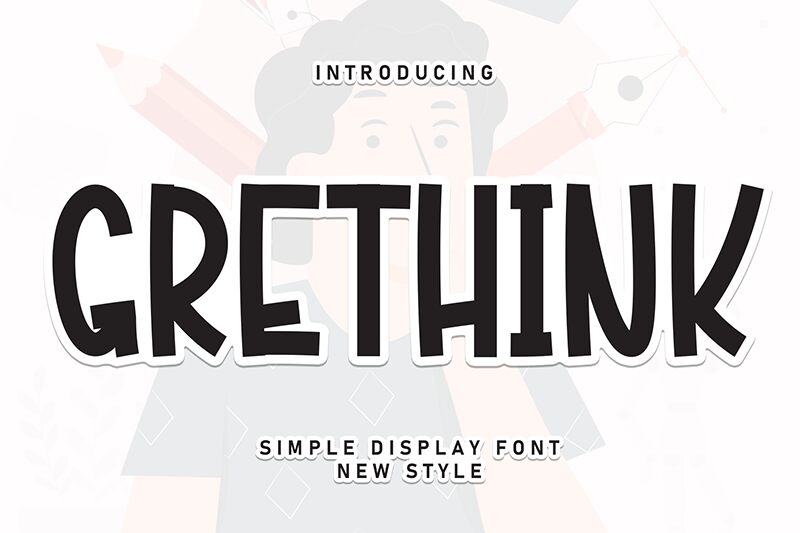
Grethink
Grethink font by Andi Moz is a condensed display font with a hand-drawn appearance. The uneven lines, irregular shapes, and overall quirky style create a bold impression which maintained consistently across the font for every glyph.
Free and versatile in its usage, this fun text style can be used to decorate posters and book covers as well as music album covers. A suitable presence for online social media posts or website banners will put it in the right spot especially if oriented towards an audience interested in comics and cartoons.